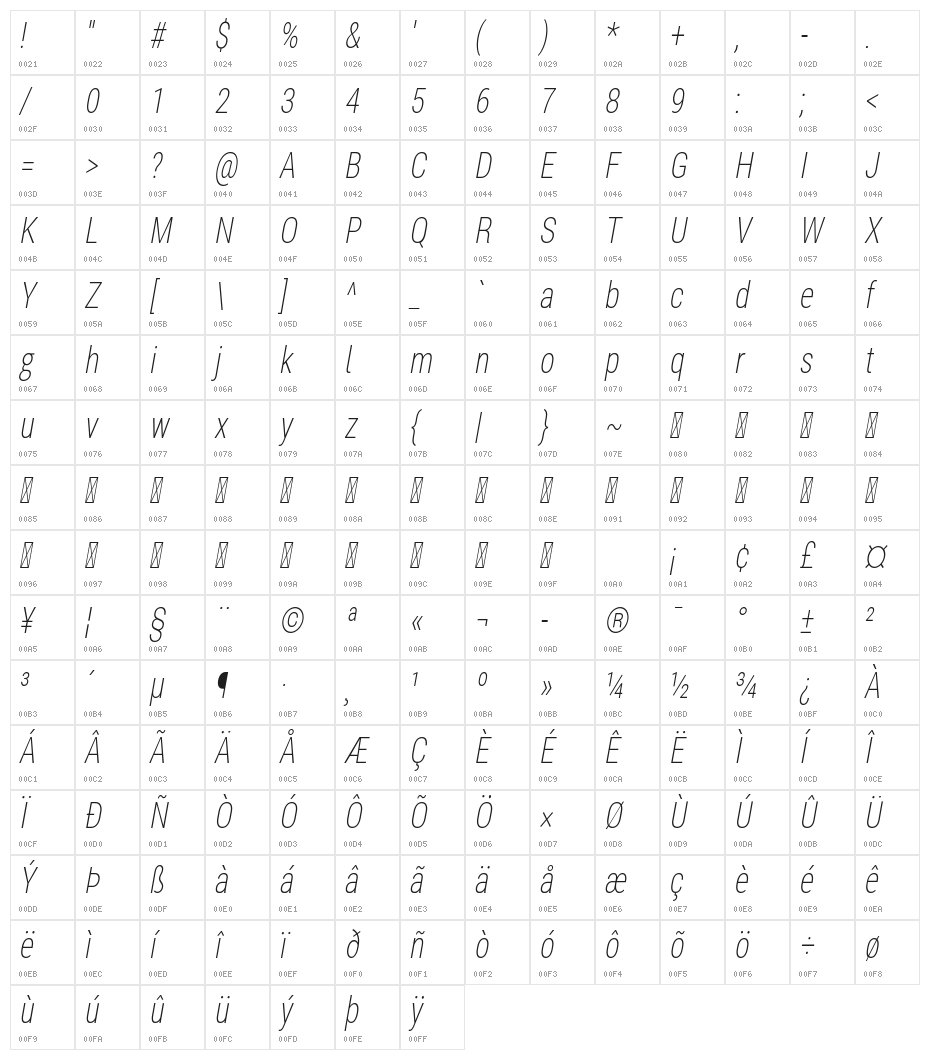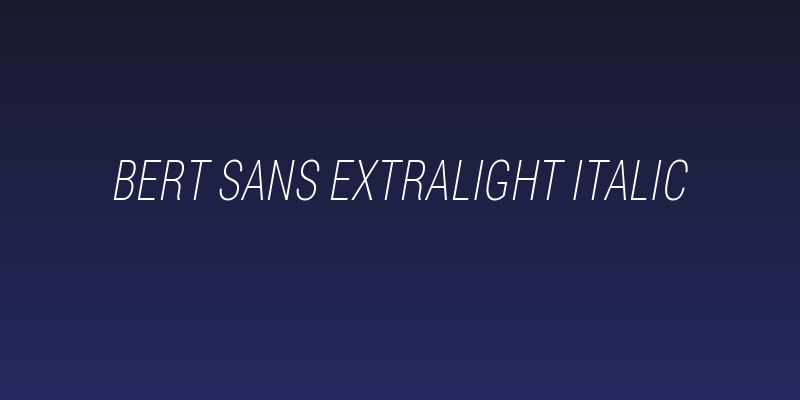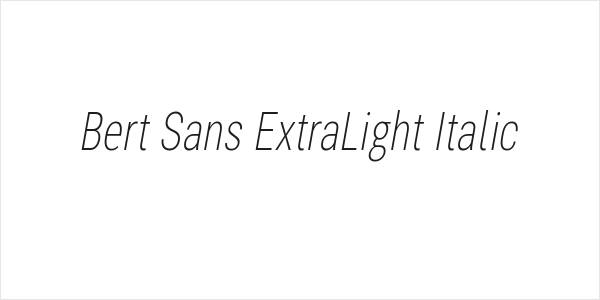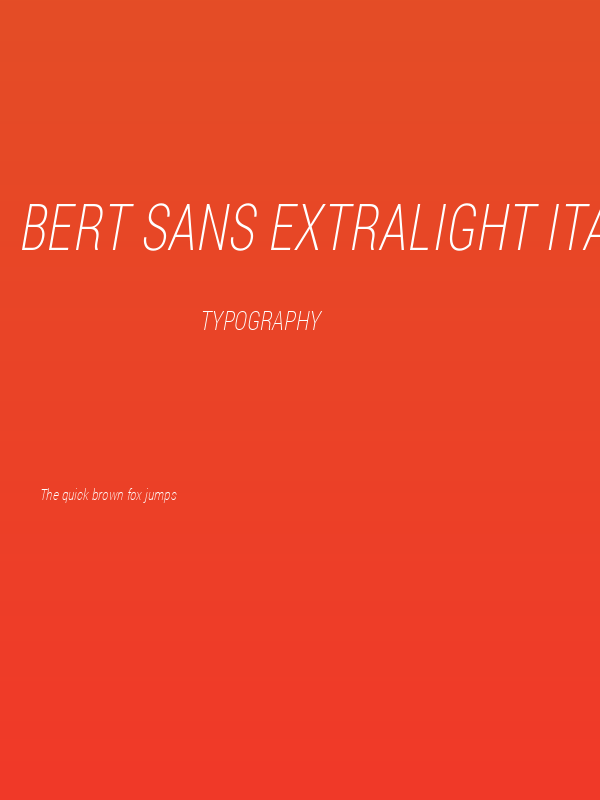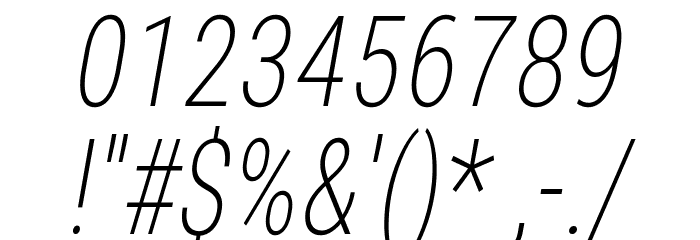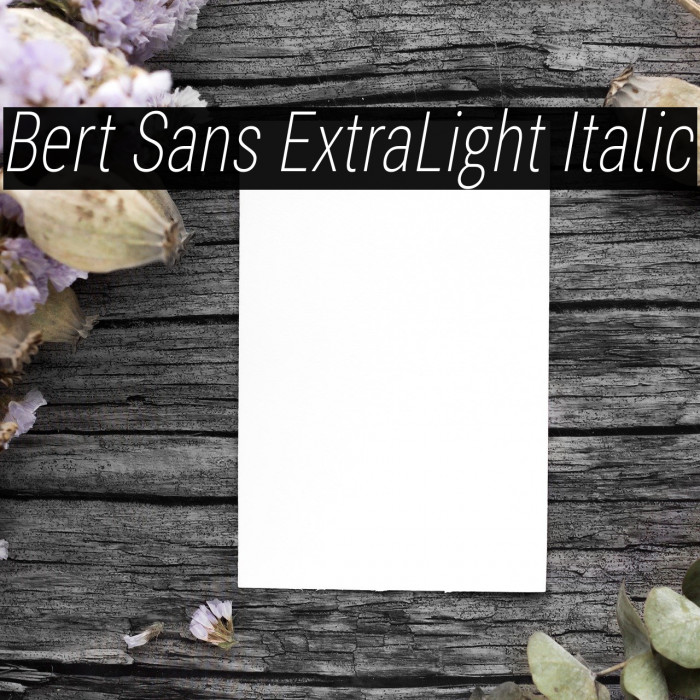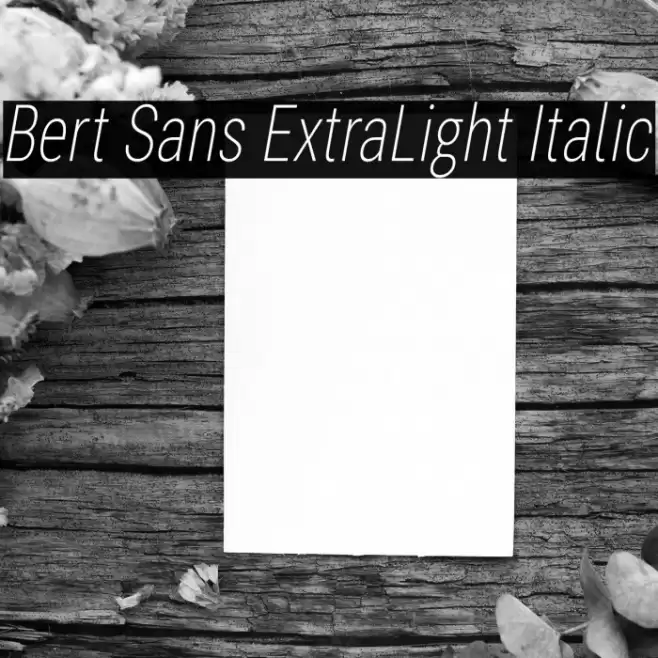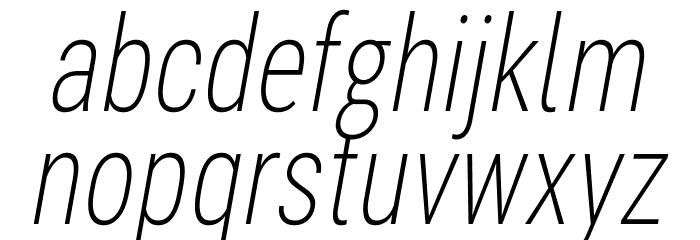
Bert Sans ExtraLight Italic Font
Bert Sans ExtraLight Italic Description
This font features a sleek, modern design with a clean and minimalist aesthetic. The characters are elegantly elongated with a slight slant, giving it an italicized appearance. The strokes are thin and consistent, contributing to an overall light and airy feel. The font maintains a uniform width across all characters, ensuring readability and balance. Its sans-serif style is evident in the absence of decorative strokes, making it suitable for contemporary design projects. The spacing between characters is normal, allowing for clear legibility without appearing crowded.
| Use Case | Headlines, Body text, Logos |
| Proposed Projects | Ideal for modern branding, minimalist design projects, digital interfaces, and editorial layouts. |